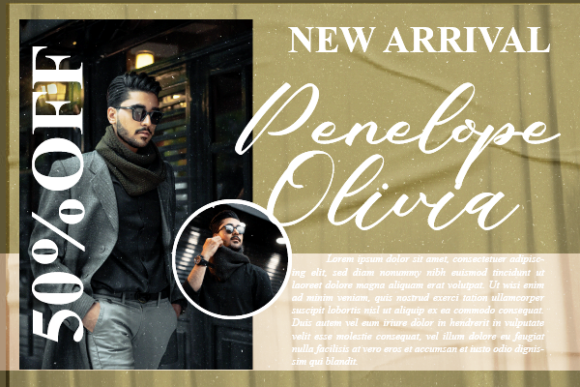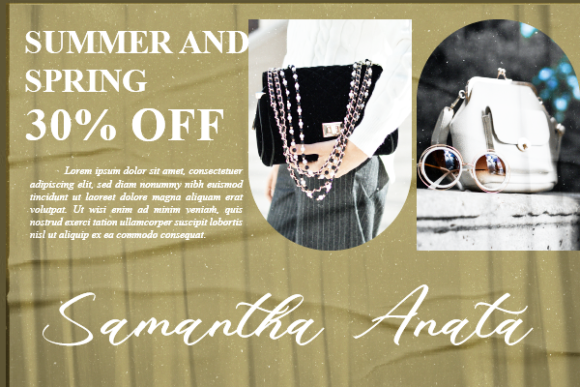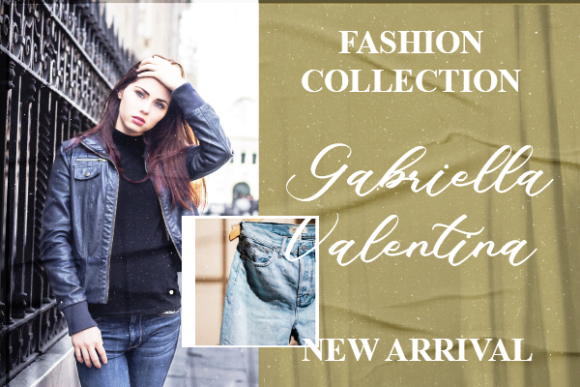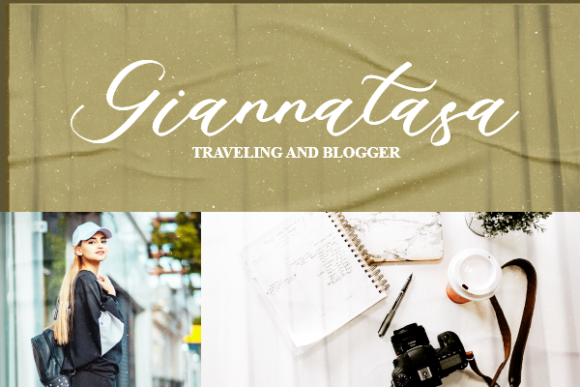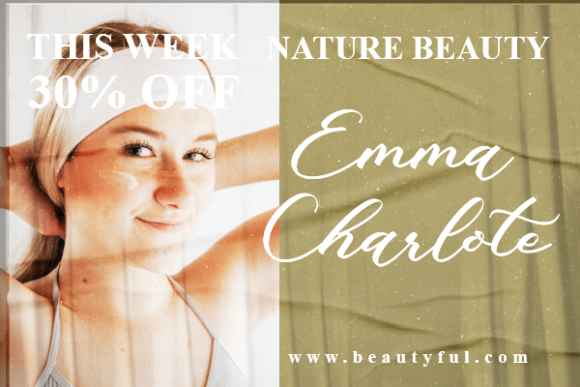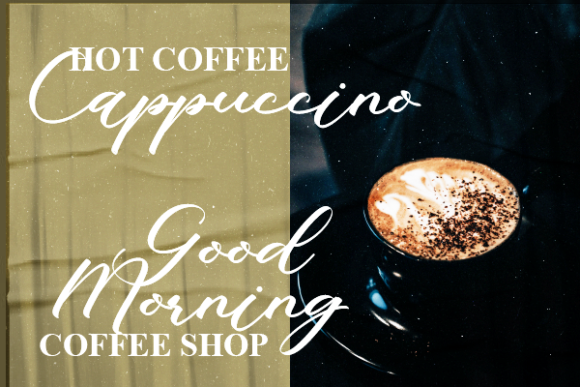
Cataleya Maddison Font: Elevate Your Designs with Elegance and Sophistication
In the world of typography, fonts play a crucial role in conveying the tone and personality of a design. For those seeking a touch of elegance and sophistication, the Cataleya Maddison Font is an excellent choice. This fashionable and delicate script font is perfect for a wide range of projects, from logos and branding initiatives to labels, photography, watermarks, and special events.
What Makes Cataleya Maddison Font Stand Out?
Cataleya Maddison Font is distinguished by its beautiful script style, characterized by flowing lines and delicate curves. Its unique charm makes it an ideal selection for designers and crafters looking to add a touch of refinement to their work. Whether you’re creating a logo, a label, or a watermark, this font is sure to impress with its sophisticated and elegant appearance.
Key Features of Cataleya Maddison Font
• Fashionable and Delicate: Cataleya Maddison boasts a modern yet delicate design that adds a touch of sophistication to any project.
• Versatile: Suitable for a wide range of applications, including logos, branding projects, labels, photography, watermarks, and special events.
• Script Style: Characterized by flowing lines and delicate curves, giving it a unique and elegant look.
• Elegant and Refined: Perfect for designers and crafters seeking to create high-end designs with a personal touch.
Use Cases for Cataleya Maddison Font
The versatility of Cataleya Maddison Font makes it suitable for various design projects. Here are some of the most popular use cases:
1. Logos and Branding Projects
A logo is often the first point of contact between a brand and its audience. With Cataleya Maddison Font, you can create a logo that exudes elegance and sophistication, setting the tone for a premium brand image.
2. Labels and Packaging
For product labels and packaging, a beautiful script font like Cataleya Maddison can add a touch of luxury and refinement, making your products stand out on store shelves.
3. Photography and Watermarks
Adding a watermark to your photos is essential for protecting your work. Cataleya Maddison Font provides an elegant solution, allowing you to add a sophisticated signature to your images.
4. Special Events and Invitations
For special events like weddings, galas, or anniversaries, the right font can make a significant difference. Cataleya Maddison Font is perfect for creating invitations, programs, or any other event-related materials that require a touch of class.
Tips for Using Cataleya Maddison Font Effectively
To get the most out of Cataleya Maddison Font, consider the following tips:
• Pair with Complementary Fonts: Combine Cataleya Maddison with sans-serif fonts for a balanced and modern look.
• Adjust Font Sizes: Experiment with different font sizes to create visual hierarchy and emphasize key elements.
• Use on High-Quality Backgrounds: Ensure the font stands out by using it on high-quality backgrounds that complement its elegant style.
Cataleya Maddison Font is a versatile and elegant script font that can elevate your designs to new heights. Its delicate curves and flowing lines make it perfect for a wide range of projects, from logos and branding to labels, photography, and special events. By incorporating Cataleya Maddison into your design toolkit, you’ll be able to create stunning and sophisticated designs that leave a lasting impression.